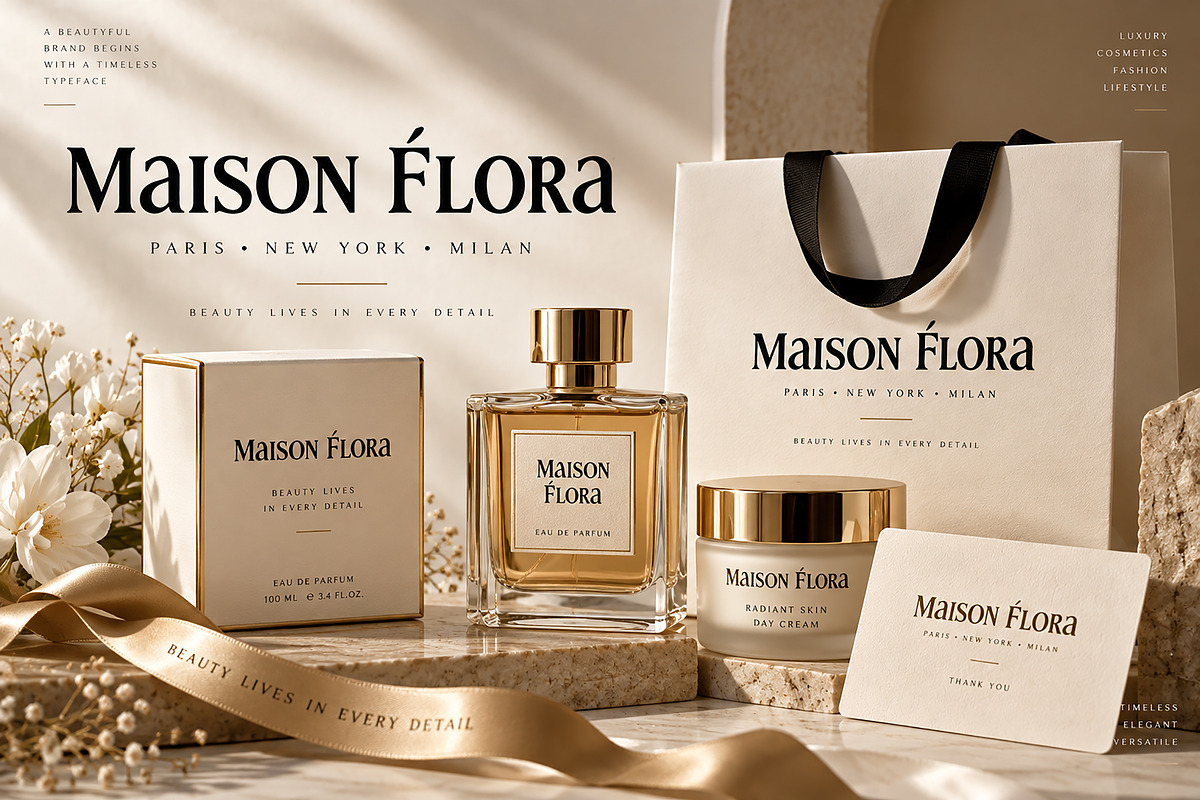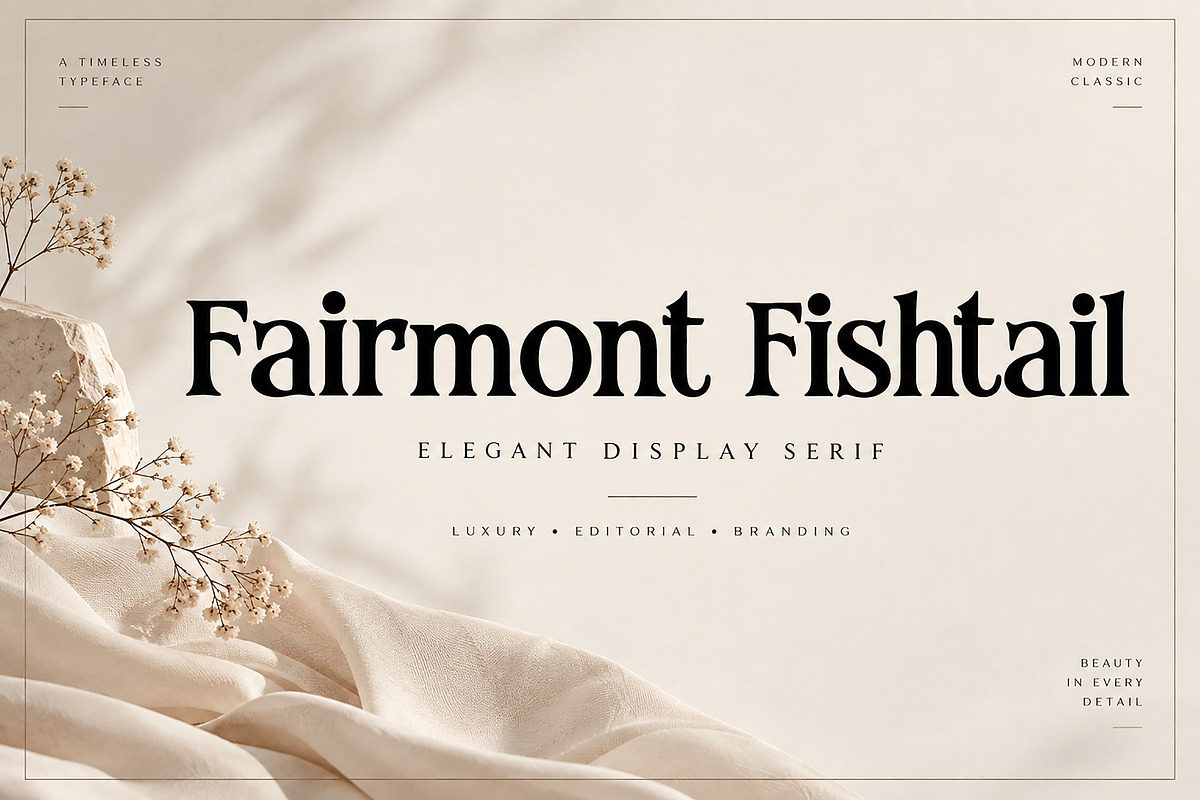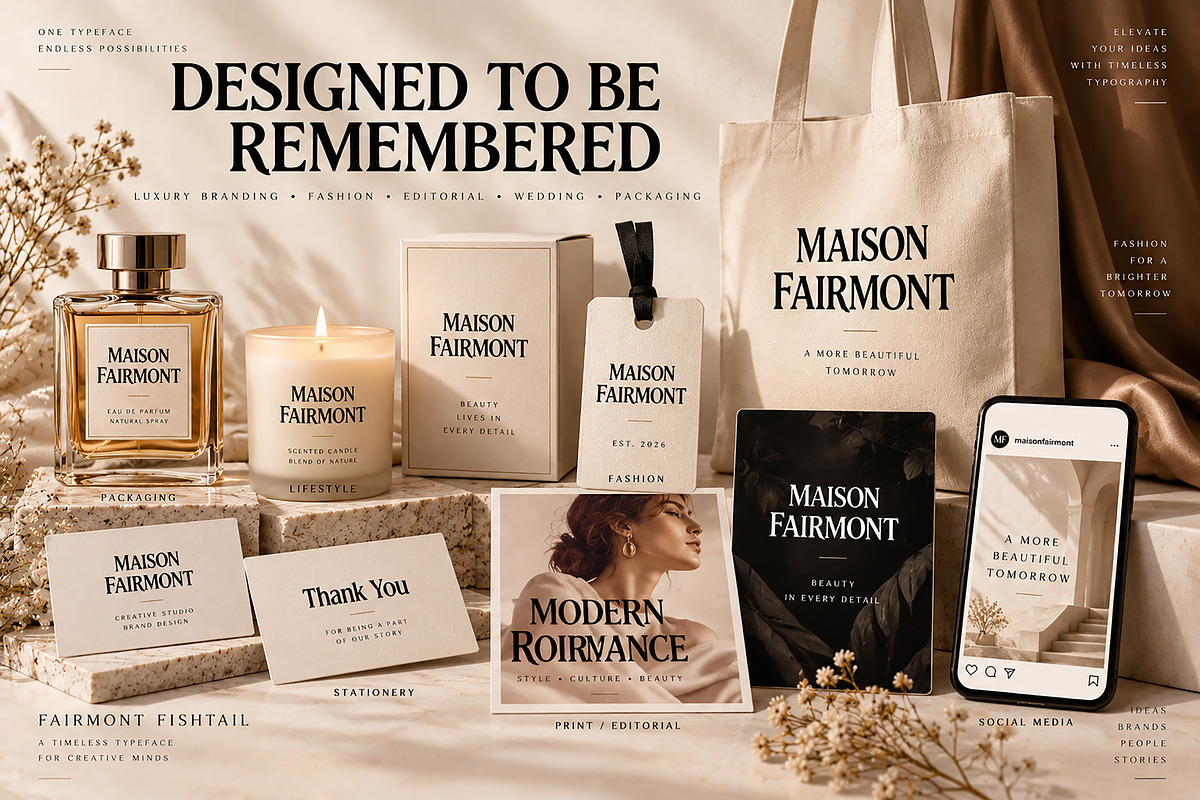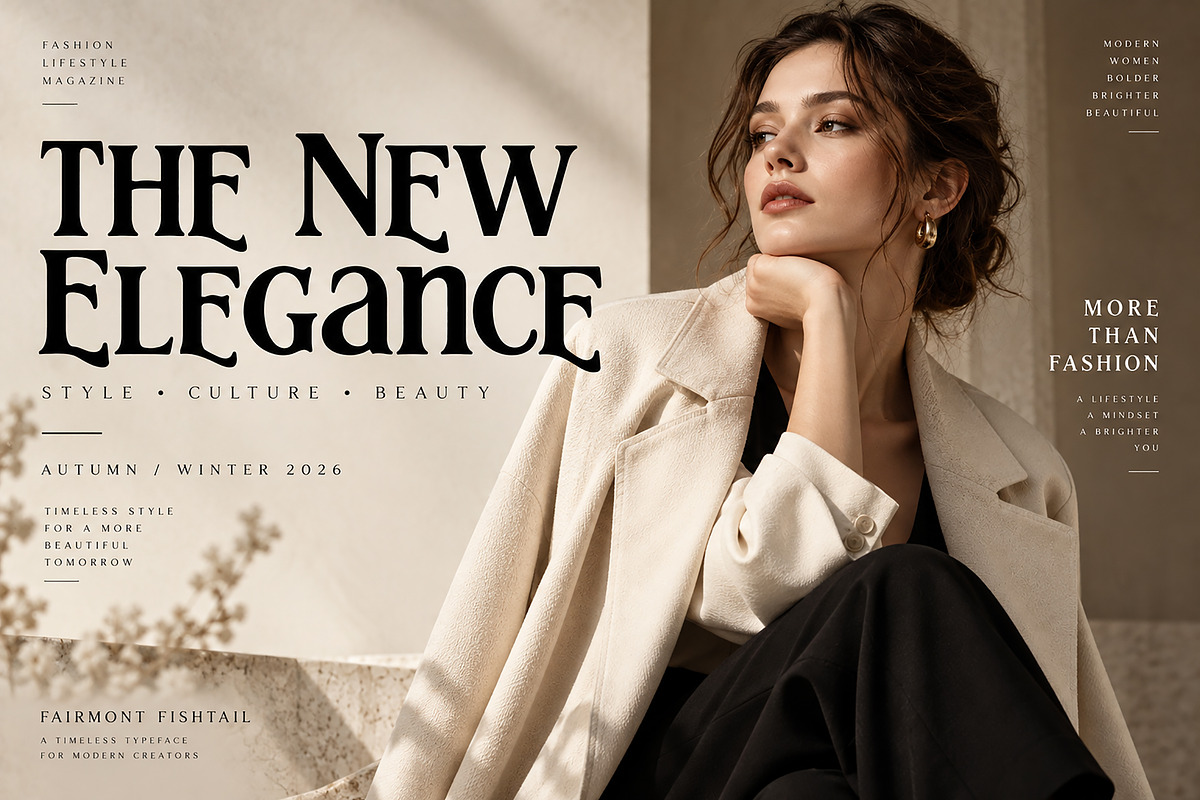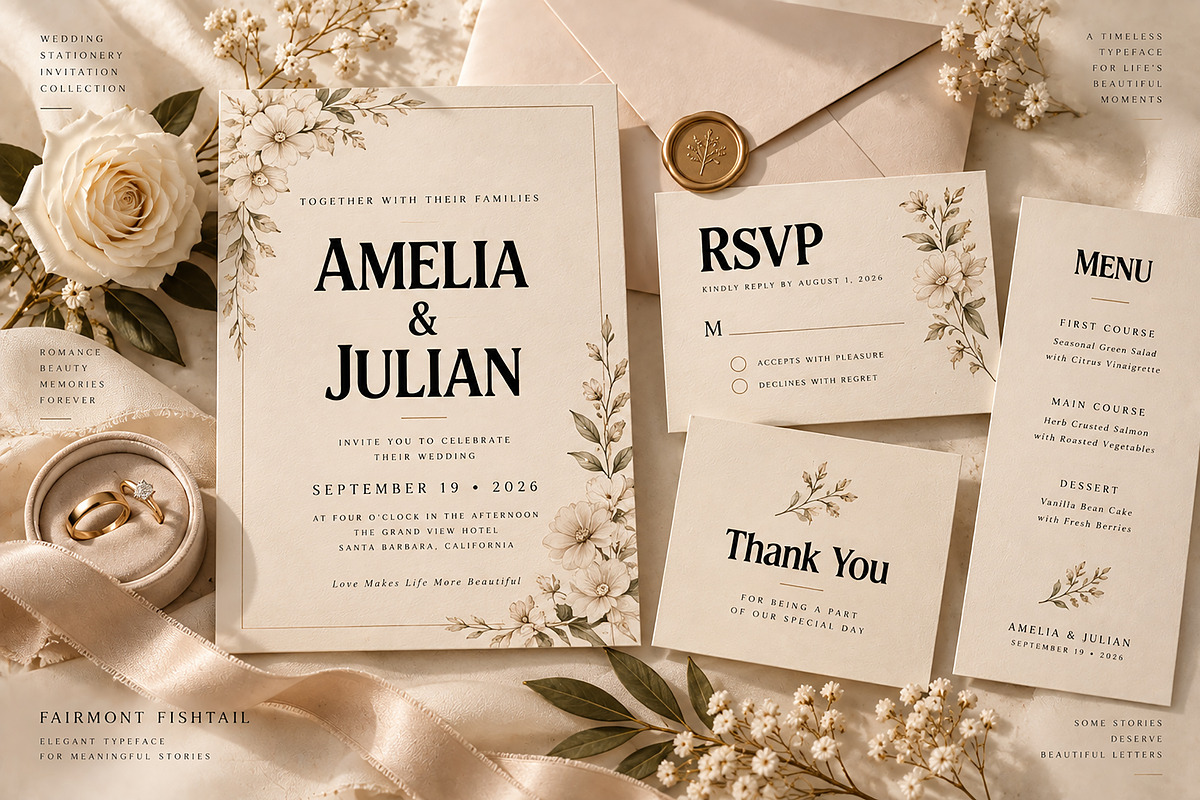
Fairmont Fishtail
Fairmont Fishtail is an elegant, high-contrast serif display font designed to bring a sophisticated and timeless character to modern creative projects. With its refined shapes, dramatic contrast, distinctive serif details, and luxurious editorial personality, this typeface is perfect for designers looking to create premium and memorable typography.
Inspired by high-end fashion editorials, luxury branding, elegant stationery, beauty packaging, and sophisticated wedding design, Fairmont Fishtail works beautifully as a statement display font for both digital and print projects.
Its graceful yet confident appearance makes it an excellent choice for logos, brand identities, fashion magazines, beauty campaigns, perfume packaging, wedding invitations, stationery, posters, social media graphics, product labels, editorial layouts, and more.
Luxury Brand Identity
Fashion & Editorial Design
Logo & Wordmark Design
Beauty & Cosmetics Branding
Perfume & Candle Packaging
Wedding Invitations
Elegant Stationery
Magazine Covers
Posters & Advertising
Product Labels
Boutique Branding
Greeting Cards
Luxury Packaging
Editorial Headlines
Style: Elegant High-Contrast Serif / Luxury Display Typeface
Fairmont Fishtail is designed to make headlines, names, logos, and brand statements feel elegant, distinctive, luxurious, and unforgettable.